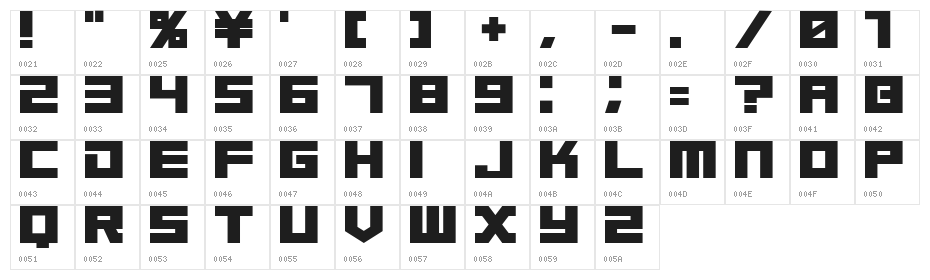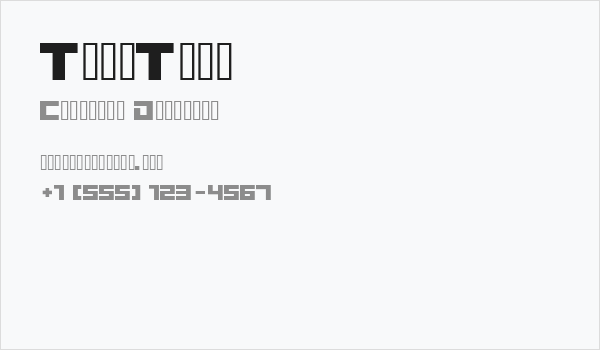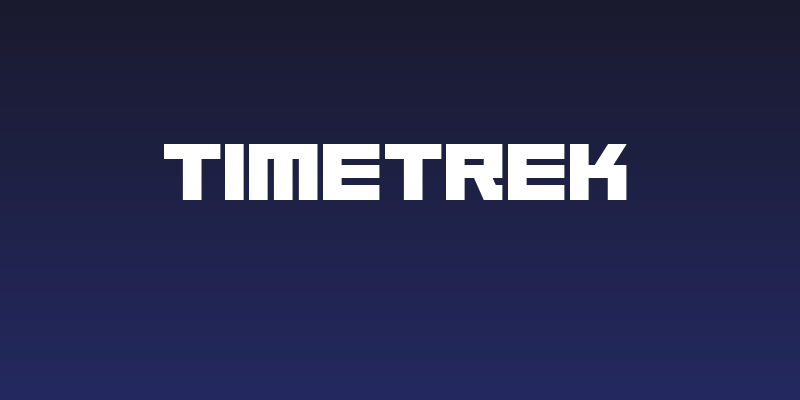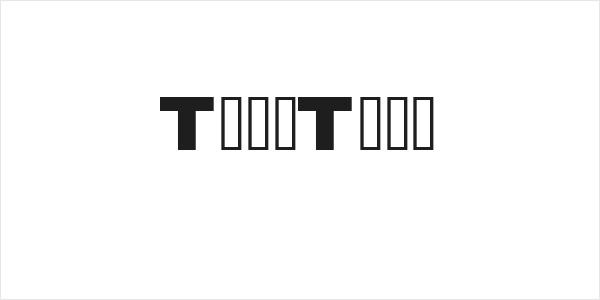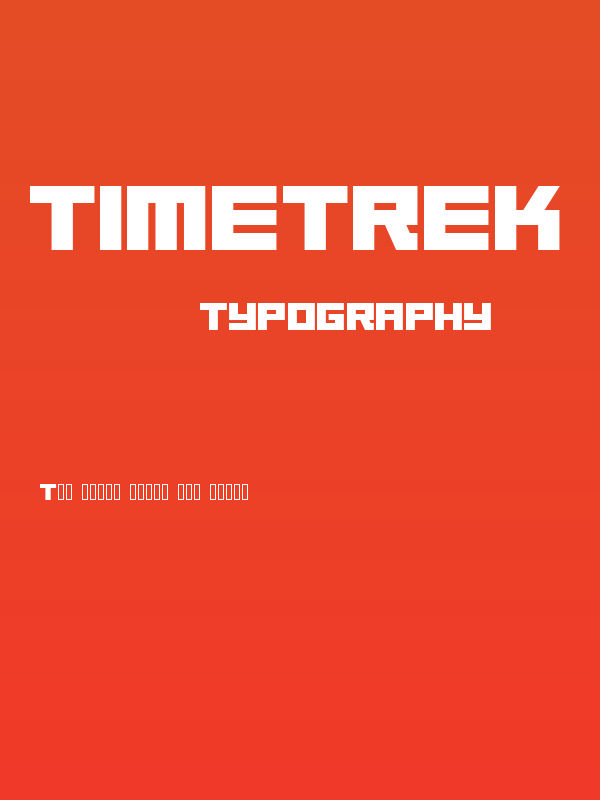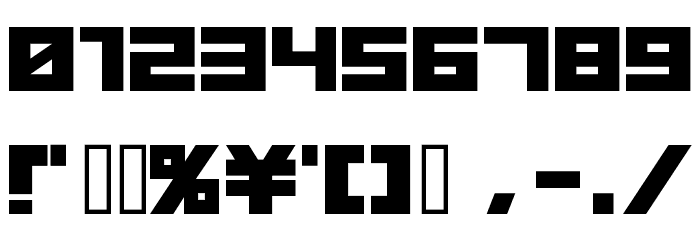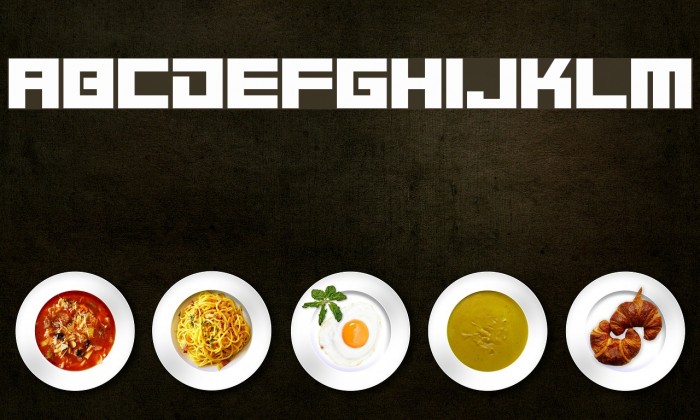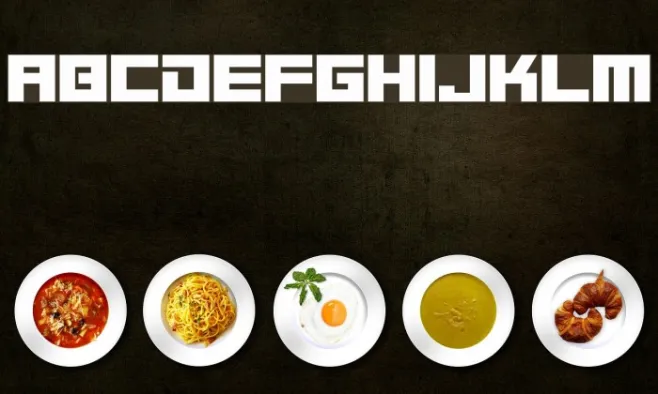
This font features a bold, geometric design with a futuristic and digital aesthetic. The characters are constructed with sharp, angular lines and a blocky structure, giving it a strong and impactful presence. The uppercase letters are uniform in height, while the lowercase letters maintain the same geometric style, ensuring consistency throughout. The numerals and special characters follow the same design principles, making them easily recognizable and cohesive with the rest of the font. The overall appearance is modern and tech-inspired, suitable for projects that require a bold and distinctive look.
| Proposed Projects | Ideal for technology branding, video game titles, sci-fi movie posters, and digital interfaces. |